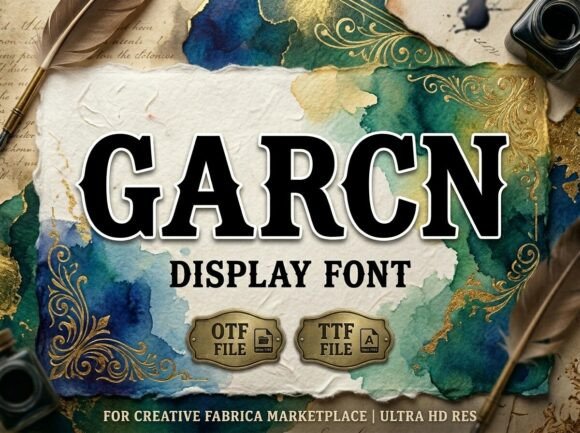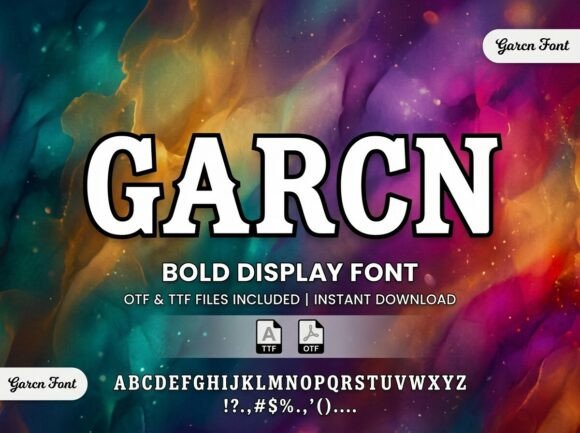
Introducing Garcn Font: The Ultimate Display Serif for Bold and Confident Designs
In the world of typography, a font can make or break a design. It can evoke emotions, convey personality, and capture the essence of a brand. For designers and crafters looking for a typeface that exudes confidence and strength, Garcn Font is the perfect choice. This powerhouse display serif is designed to command attention, featuring massive, high-contrast slab-serif letterforms that embody a “sturdy-and-spirited” soul.
The Unique Characteristics of Garcn Font
Garcn Font boasts a distinctive design that sets it apart from other typefaces. Its massive, high-contrast slab-serif letterforms are characterized by rhythmic, hand-drawn “spurs” and sharp terminals. These unique features bridge the gap between vintage collegiate aesthetics and modern athletic branding, making Garcn Font an ideal choice for designers looking to create bold and eye-catching designs.
The font’s heavy structural weight and confident personality make it perfect for high-impact designs that require a strong visual presence. Whether you’re working on independent sports apparel, brewery identities, varsity-themed editorial, or social media headers, Garcn Font is the premier choice for designers who want to make a statement.
Design Inspiration: Vintage Collegiate Meets Modern Athletic Branding
Garcn Font draws inspiration from the classic collegiate typography of the past, while also incorporating modern athletic branding elements. The result is a typeface that feels both nostalgic and contemporary, making it perfect for designers who want to create designs that appeal to a wide range of audiences.
The font’s vintage collegiate roots are evident in its slab-serif letterforms, which evoke the classic typography of sports jerseys, stadium signs, and vintage athletic posters. However, Garcn Font also features modern athletic branding elements, such as sharp terminals and hand-drawn spurs, which give it a bold and dynamic feel.
Perfect for Bold and Confident Designs
Garcn Font is designed for designers who want to create bold and confident designs that command attention. Its heavy structural weight and confident personality make it perfect for high-impact designs, such as:
- Independent sports apparel: Garcn Font is ideal for designing bold and eye-catching sports apparel, such as t-shirts, hoodies, and hats.
- Brewery identities: The font’s unique blend of vintage collegiate and modern athletic branding elements makes it perfect for brewery identities that want to stand out from the crowd.
- Varsity-themed editorial: Garcn Font is perfect for designing varsity-themed editorial, such as sports magazines, programs, and posters.
- Social media headers: The font’s bold and dynamic feel makes it ideal for creating high-impact social media headers that grab attention.
Why Choose Garcn Font?
So why choose Garcn Font for your design projects? Here are just a few reasons:
- Unique design: Garcn Font features a distinctive design that sets it apart from other typefaces.
- Confidence and strength: The font’s heavy structural weight and confident personality make it perfect for high-impact designs.
- Versatility: Garcn Font can be used for a wide range of design projects, from sports apparel to brewery identities.
- Easy to read: Despite its bold and dynamic feel, Garcn Font is easy to read, even at large sizes.
In conclusion, Garcn Font is the ultimate display serif for designers who want to create bold and confident designs. Its unique blend of vintage collegiate and modern athletic branding elements, combined with its heavy structural weight and confident personality, make it perfect for high-impact designs. Whether you’re working on independent sports apparel, brewery identities, varsity-themed editorial, or social media headers, Garcn Font is the premier choice for designers who want to make a statement.